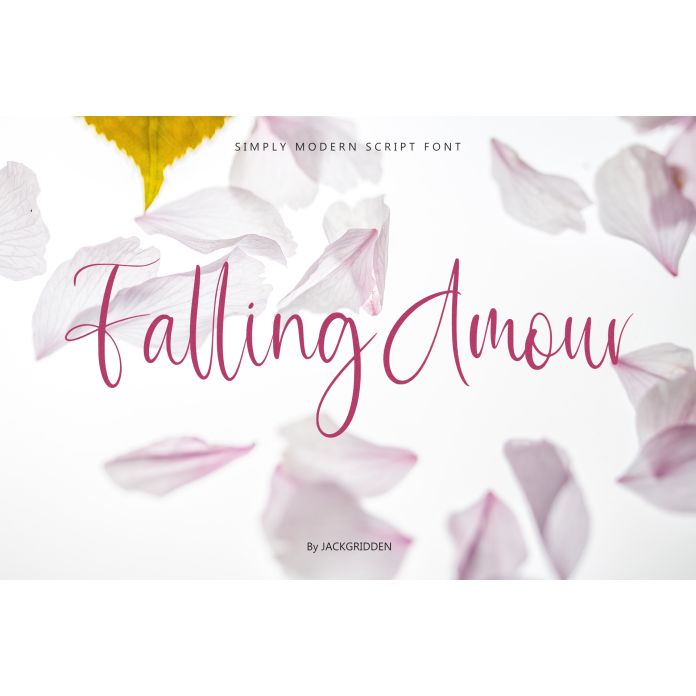
Falling Amour is a beautifully crafted handwritten font that combines elegance with a touch of romance. Its fluid strokes and delicate curves make it perfect for a variety of design projects, from wedding invitations to branding materials. Whether you’re looking to add a personal touch to your creations or infuse a bit of charm into your designs, Falling Amour delivers with its graceful, flowing characters and stylish flair. Easy to read and versatile, this font will elevate any project with its unique, handwritten charm.